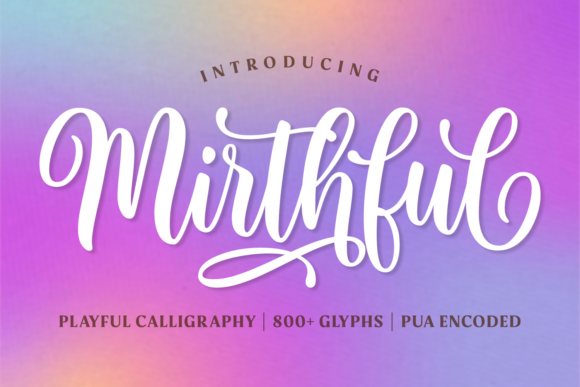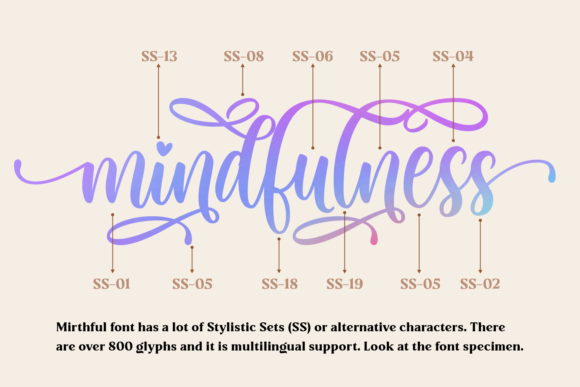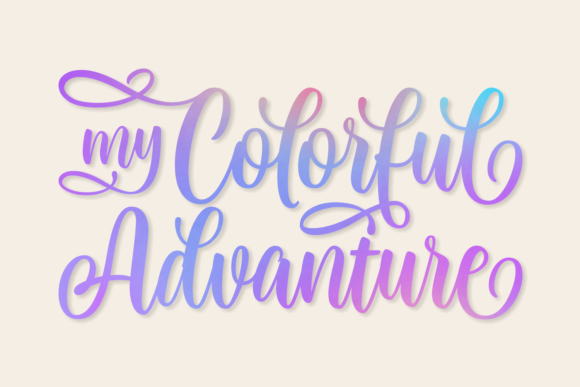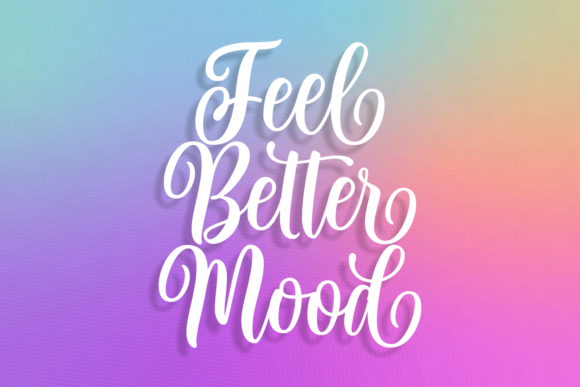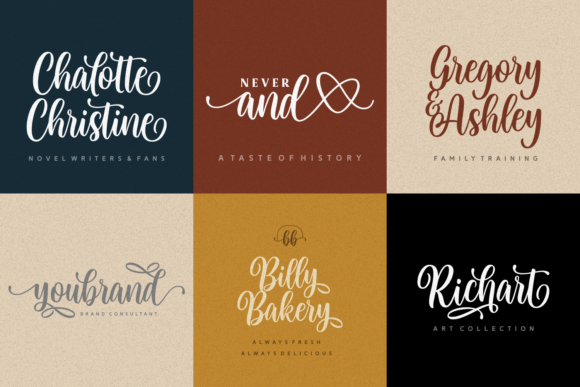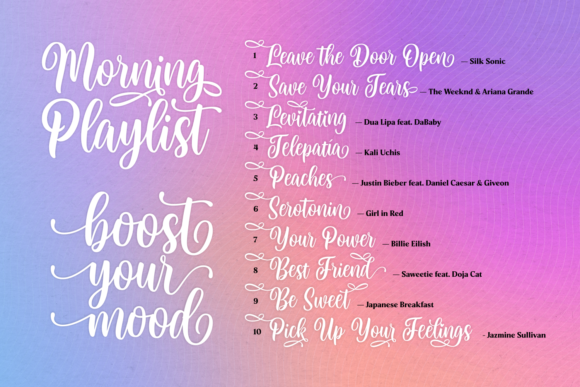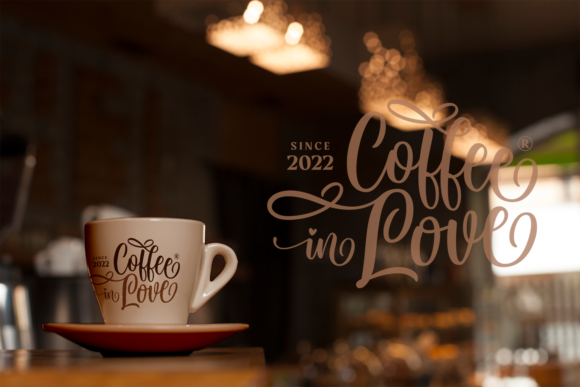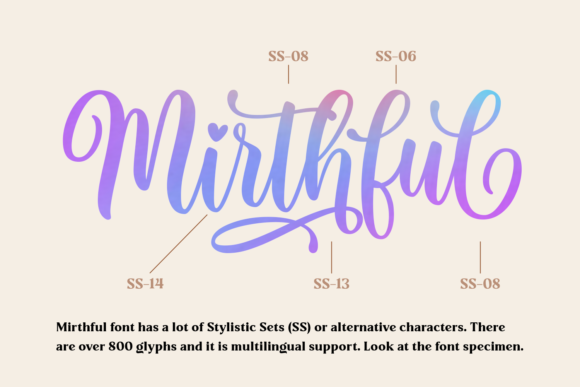
Mirthful Font
About Mirthful Font
Mirthful is an outstanding script font. This gentle font will look gorgeous on a variety of design ideas. It will add a joyful and romantic touch to each of your projects!